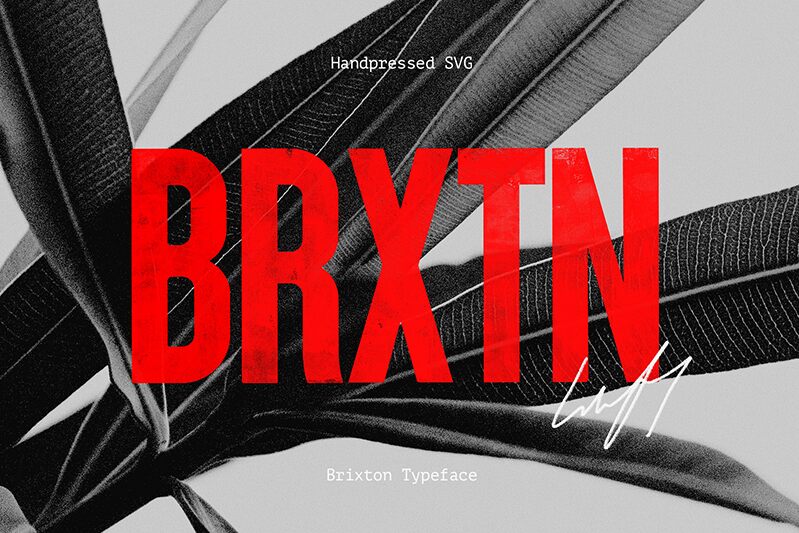
Brixton Wood Vector, a captivating display font by Ellen Luff, infuses a touch of eroded charm to your creative projects. With its semi-light weight and extra-condensed width, this sans serif typeface adds a unique aesthetic to various designs. Ideal for vintage-inspired logos, album covers, or edgy posters, Brixton Wood Vector effortlessly captures attention and evokes a sense of nostalgia. Embrace the versatility of this font and let its rugged yet refined style elevate your branding, packaging, or social media graphics. Unleash the power of Brixton Wood Vector for an unforgettable visual experience.